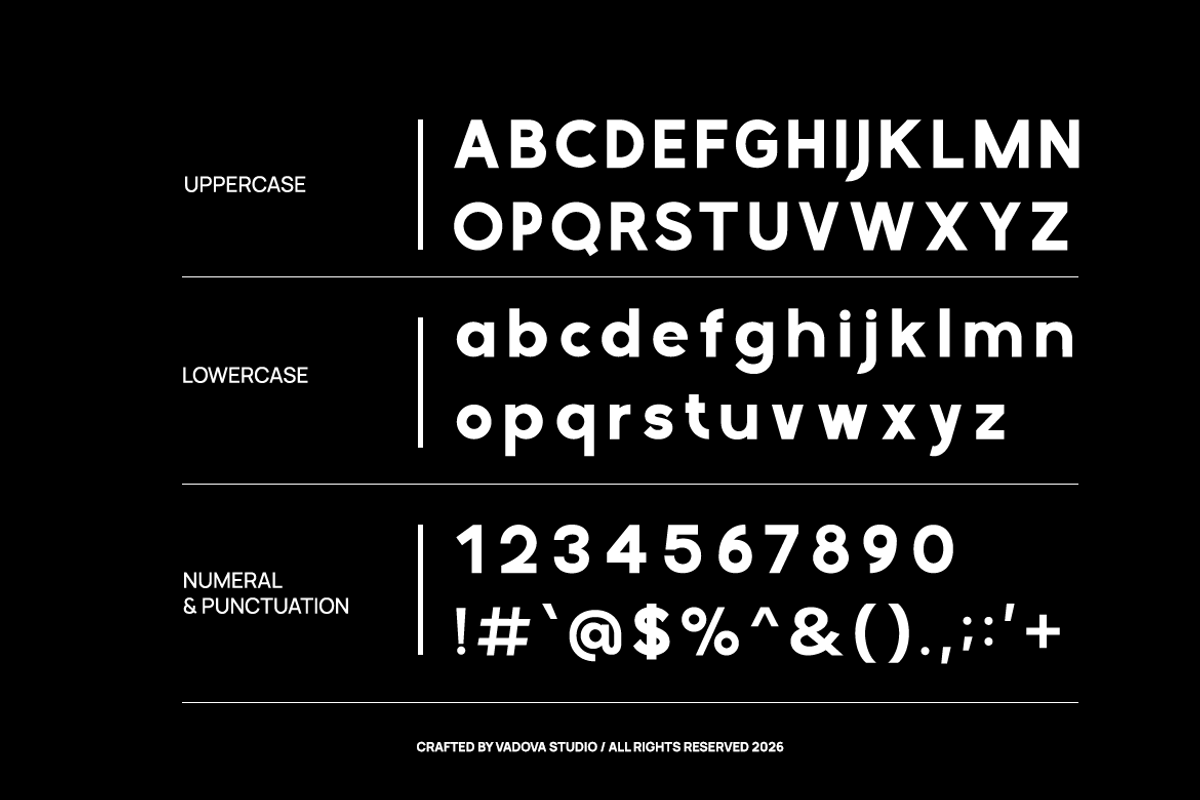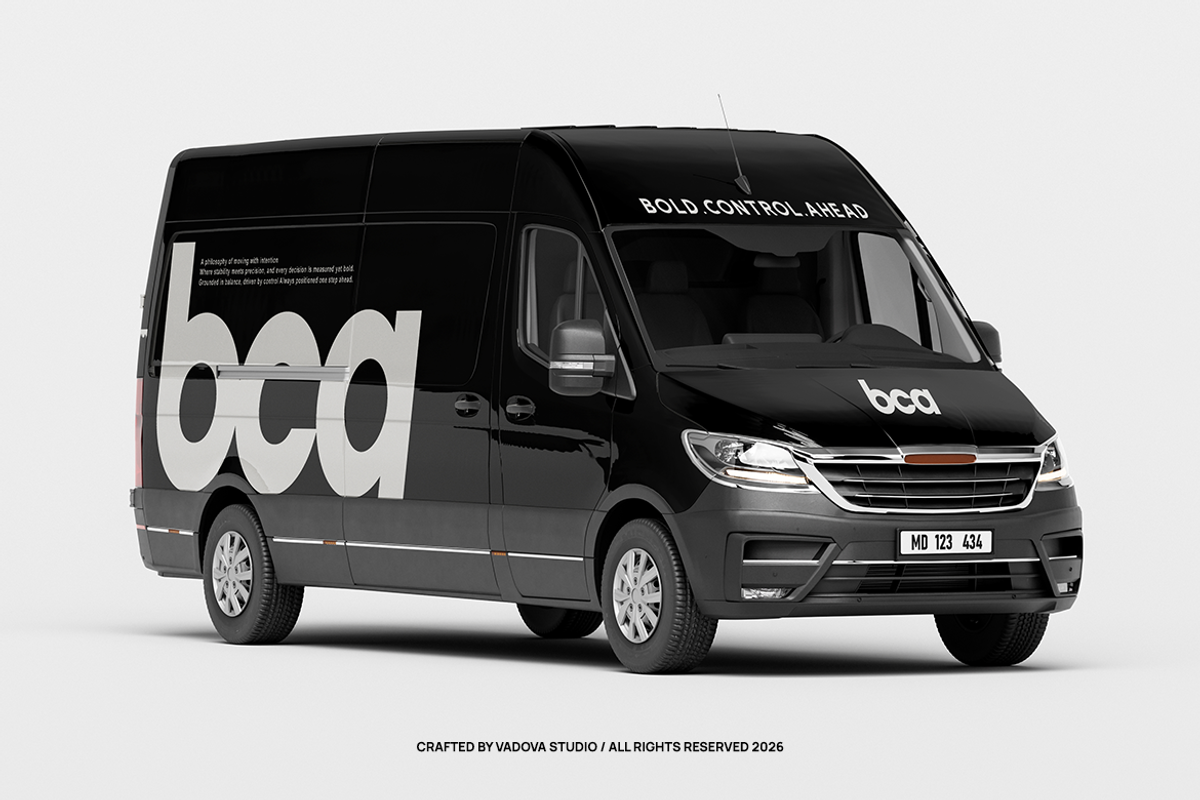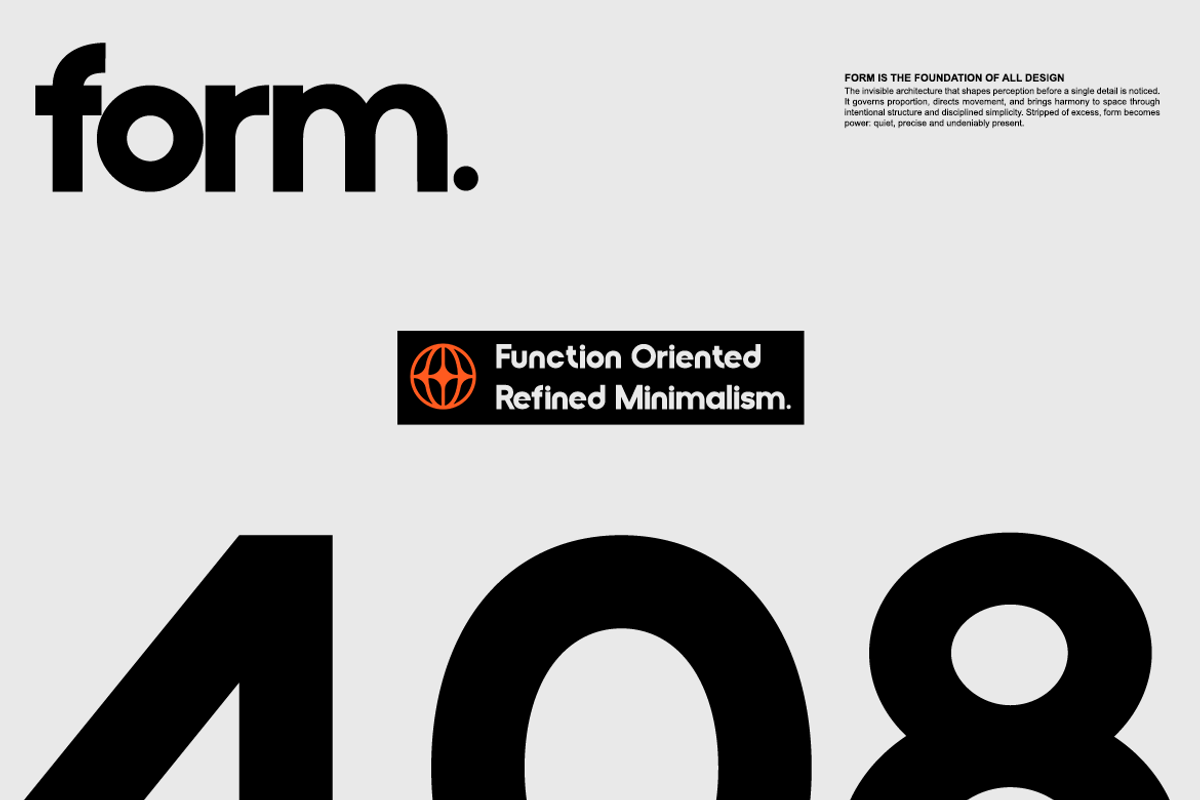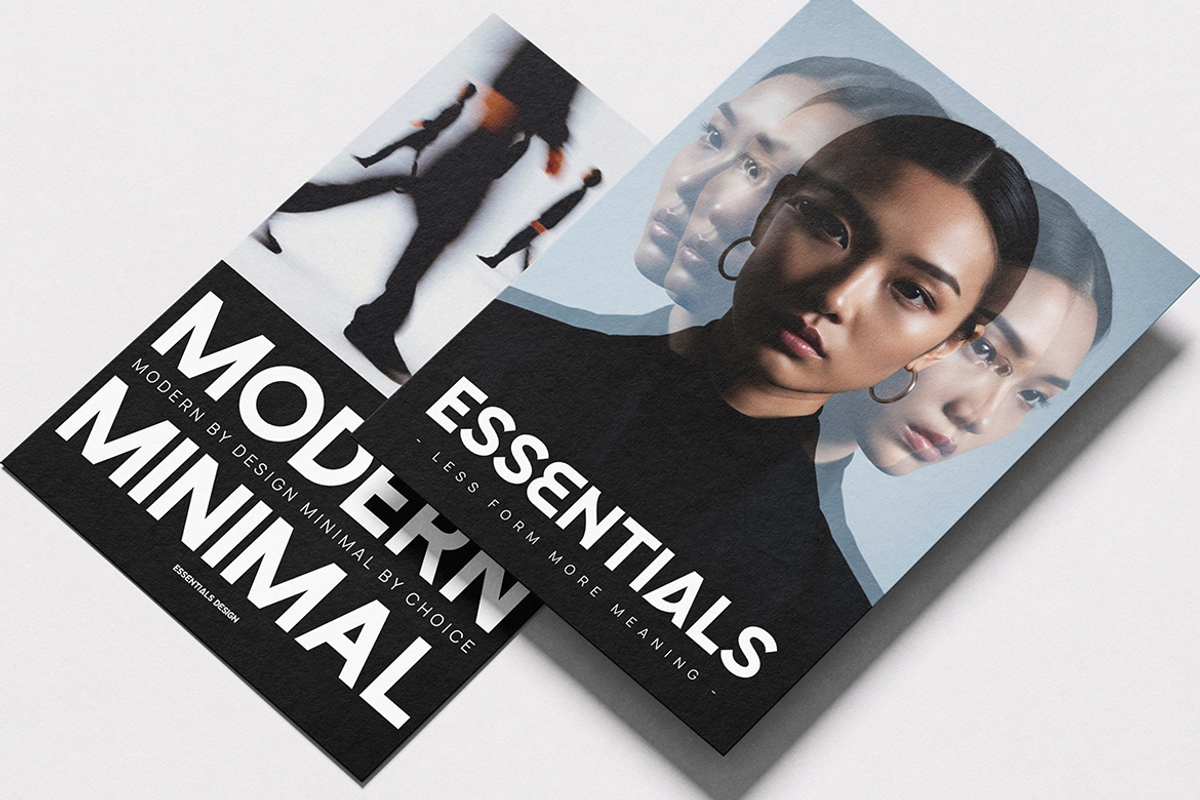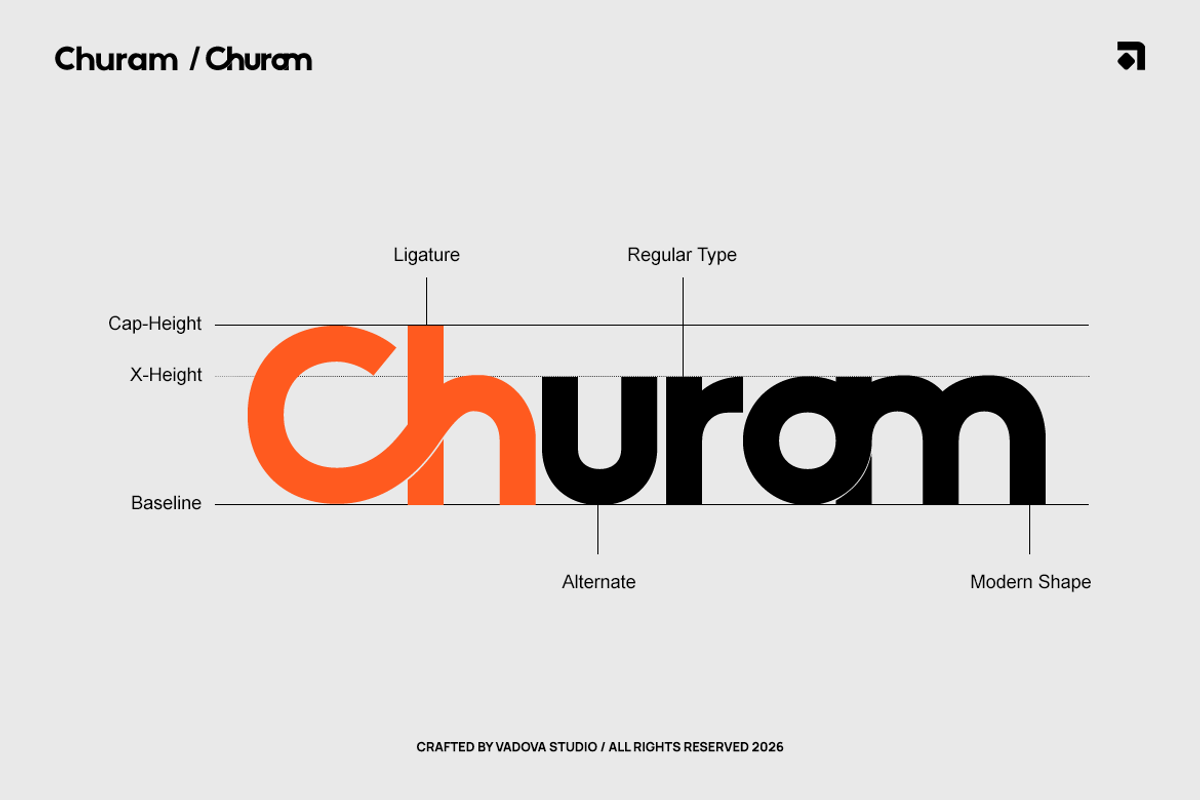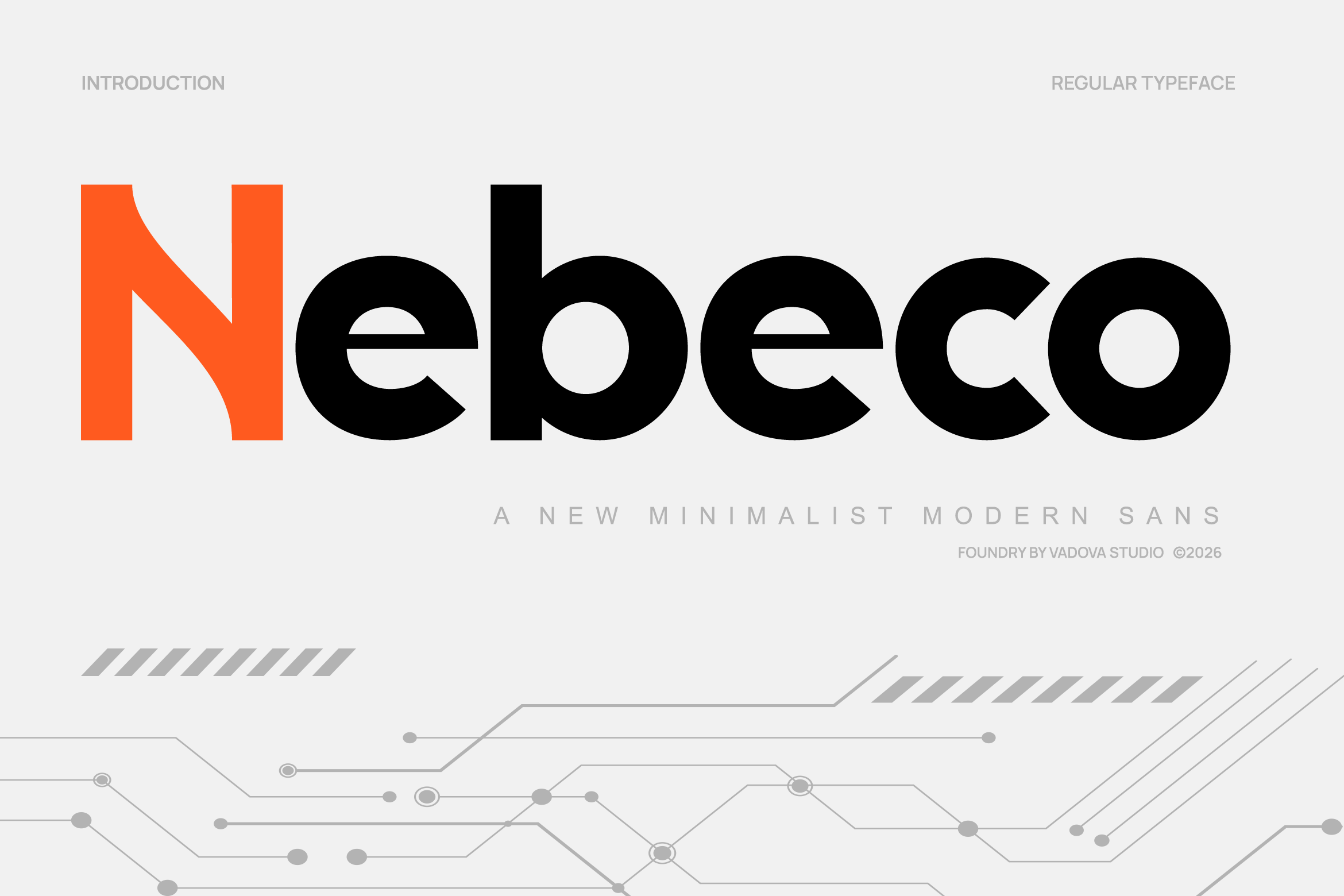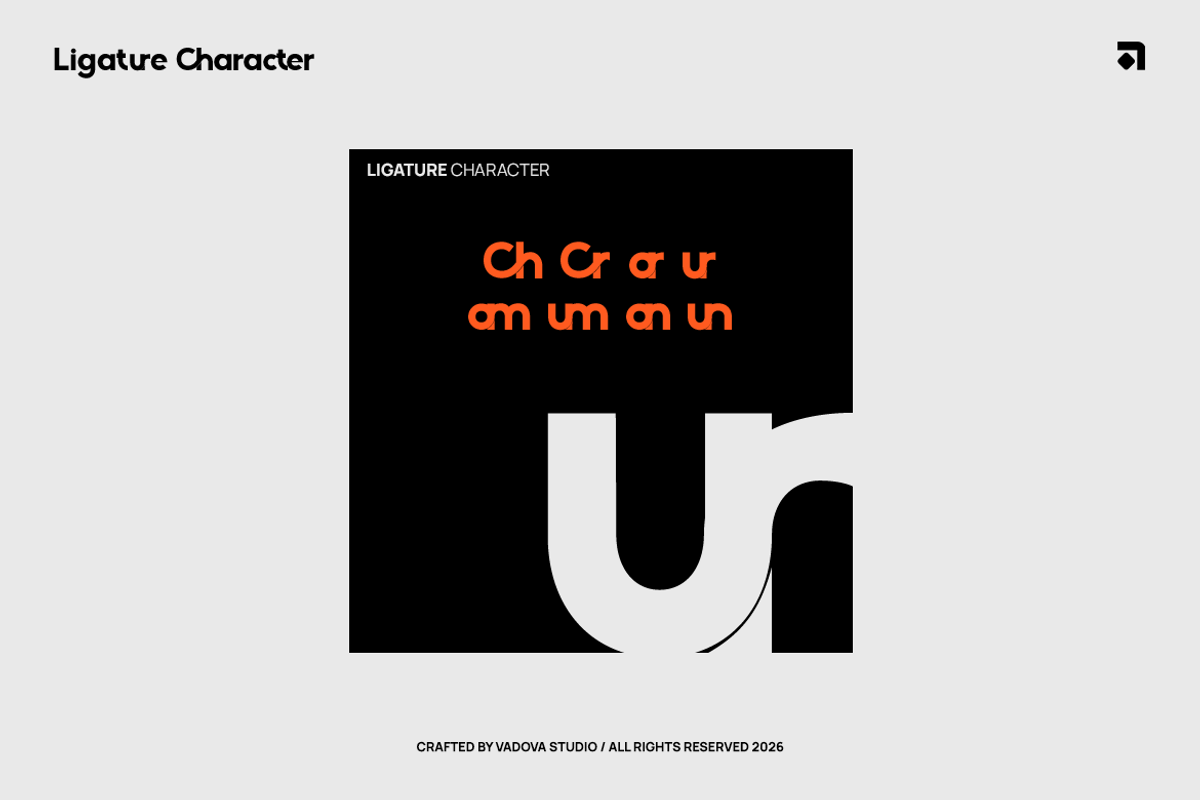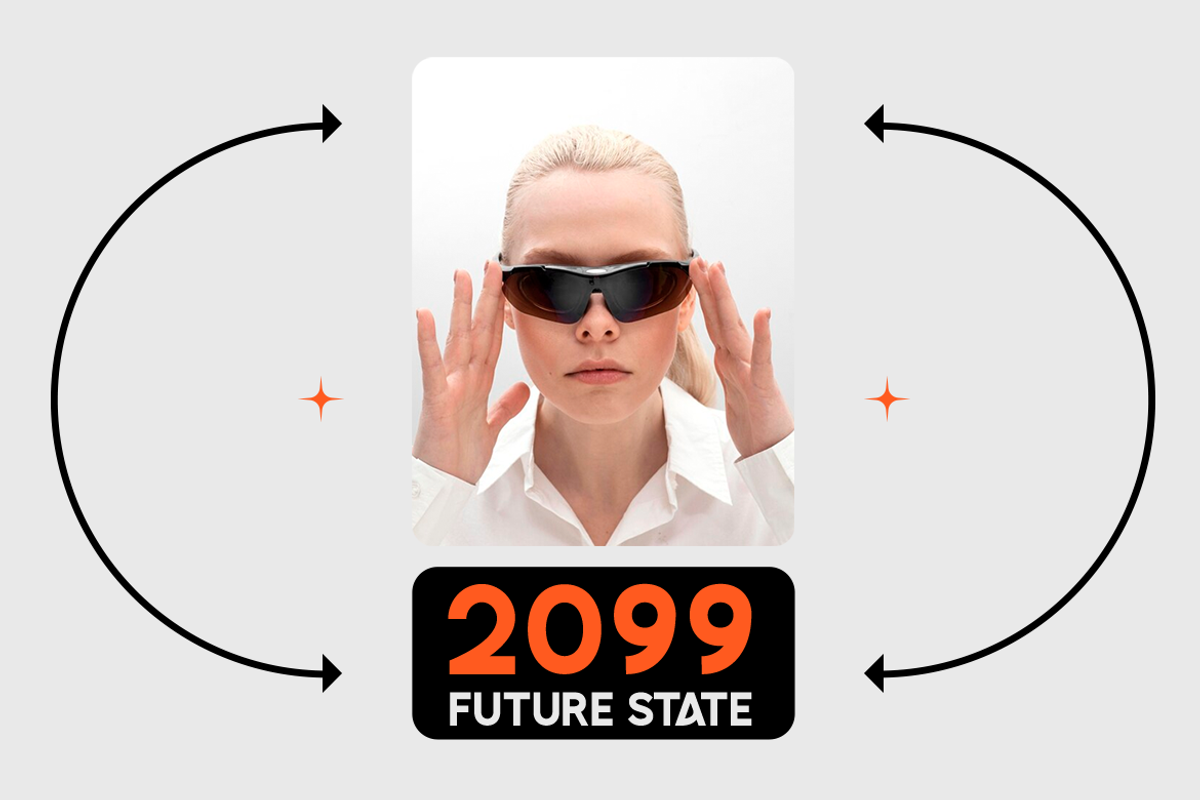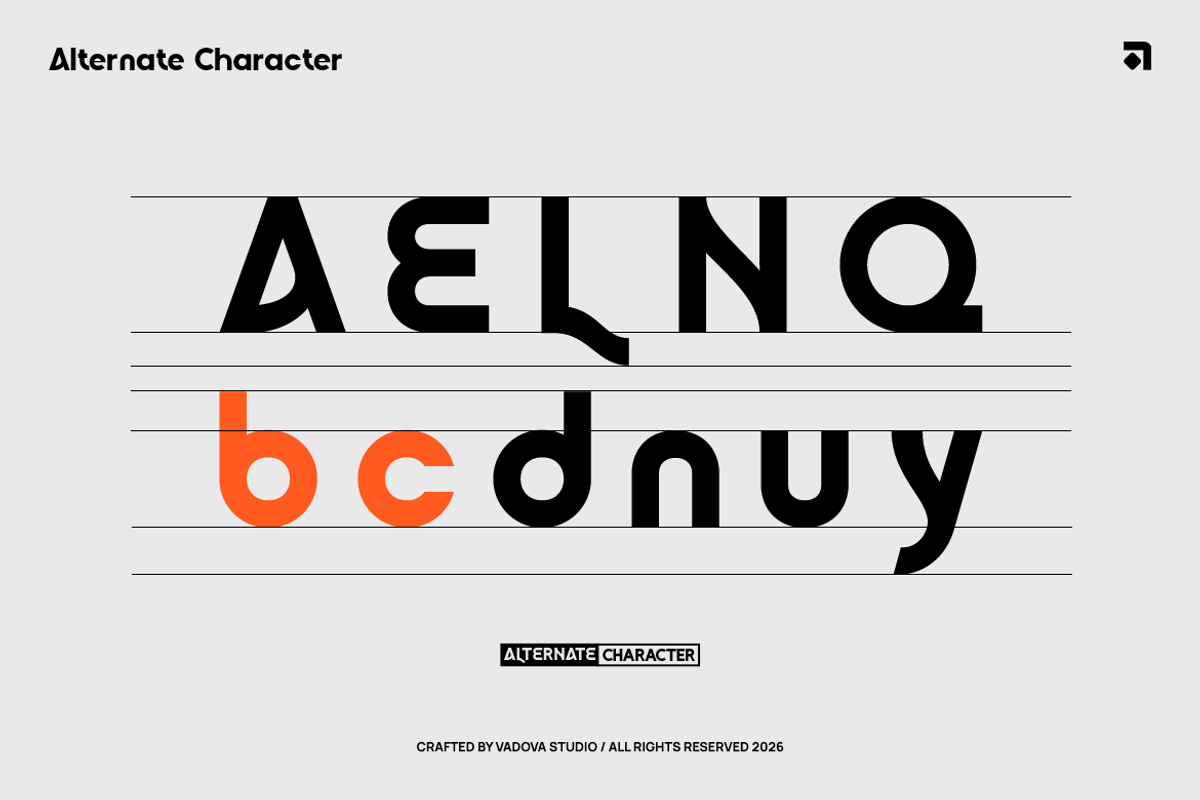
Nebeco Minimalist Modern Sans Font
Nebeco is highly relevant for brands seeking a clean and forward-thinking identity. Ideal for technology startups, corporate rebranding, UI/UX projects, mobile app interfaces, architectural presentations, digital marketing campaigns, and professional logo systems. Its strong geometric structure and modern clarity make it suitable for industries that value innovation, precision, and contemporary aesthetics.
- Modern minimalist sans construction with a strong geometric foundation
- Clean grotesk-inspired structure refined with contemporary proportions
- Subtle curved details in select characters adding visual softness
- Smooth, rounded inner counters for improved clarity and balance
- Consistent stroke weight ensuring a stable and professional appearance
- Brand identity systems seeking a clean and professional tone
- UI/UX design templates for modern tech products and mobile apps
- Editorial magazines and minimalist book layouts
- Product packaging and label design with sleek aesthetics
- Corporate presentations and business reports
Discover Nebeco and let your message stand out with clean, contemporary precision